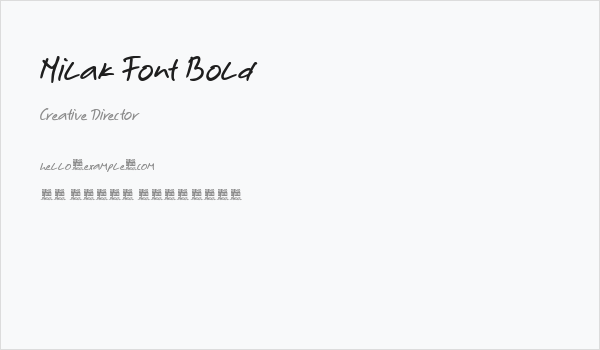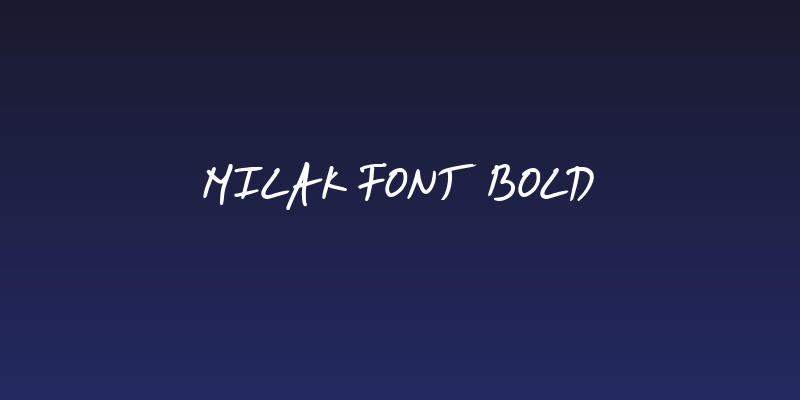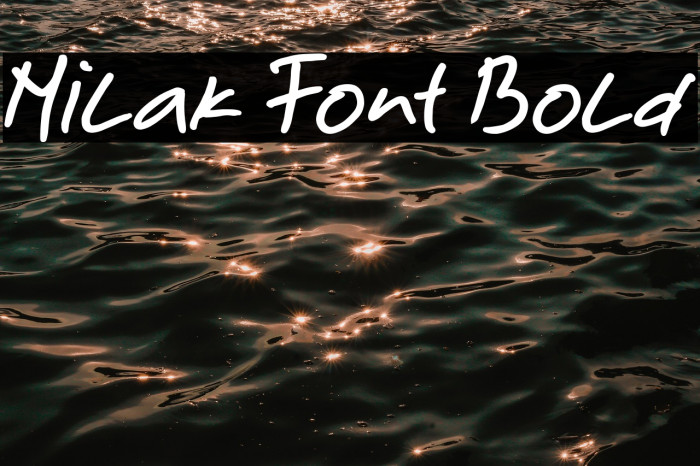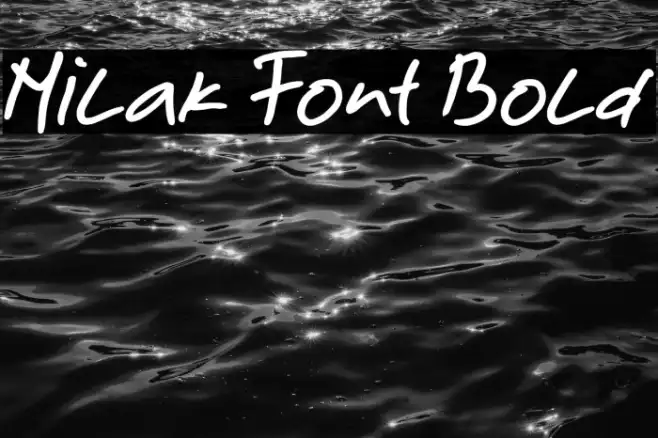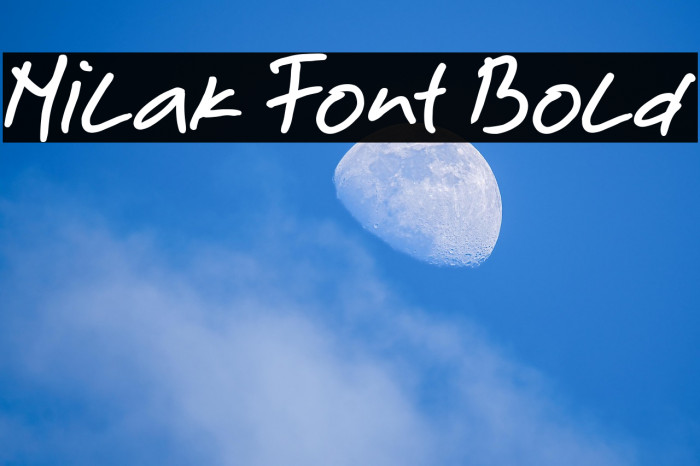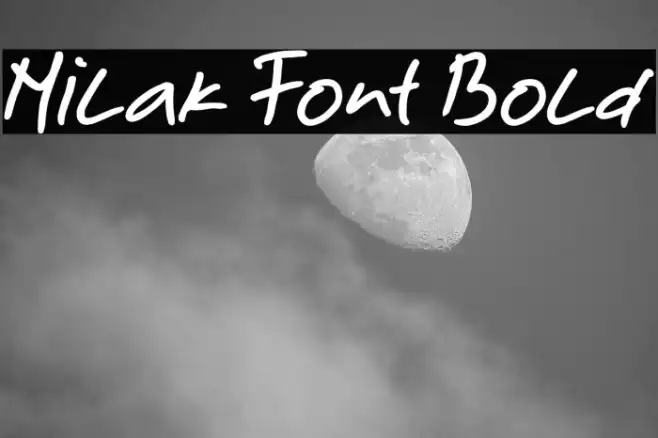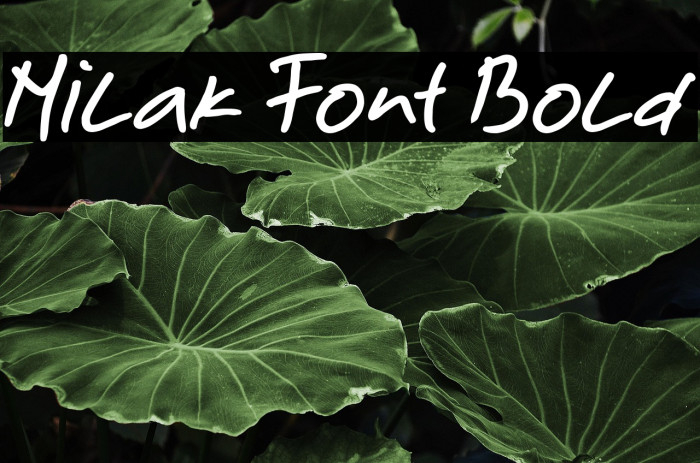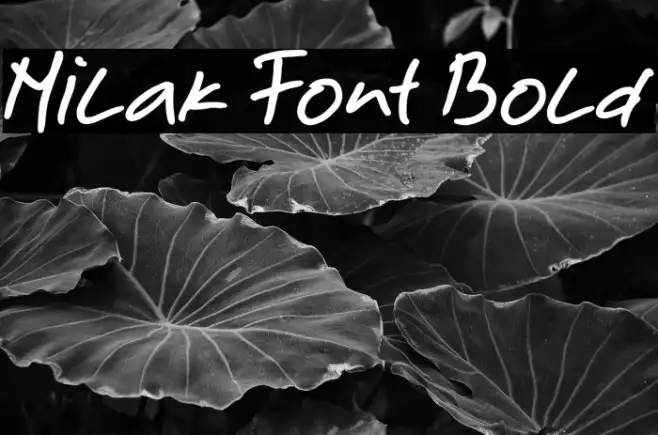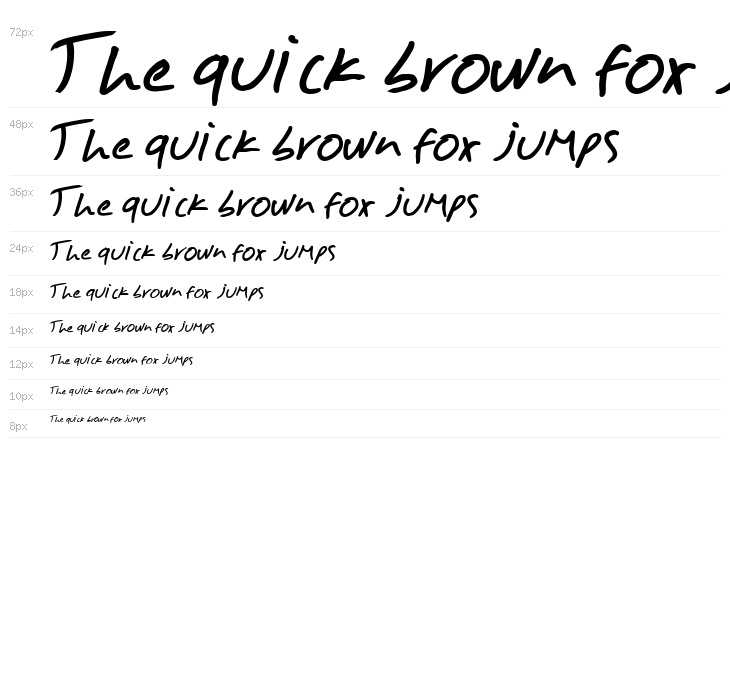
Milak Font Bold Description
This font exhibits a dynamic and energetic handwritten style, characterized by its bold and fluid strokes. The letters have a natural, organic flow, giving them a personal and informal feel. The uppercase and lowercase letters maintain a consistent style, with slightly varying stroke widths that add to the font's lively appearance. The numerals and special characters are crafted with the same attention to detail, ensuring a cohesive look across all glyphs. This font is perfect for projects that require a touch of personality and creativity.